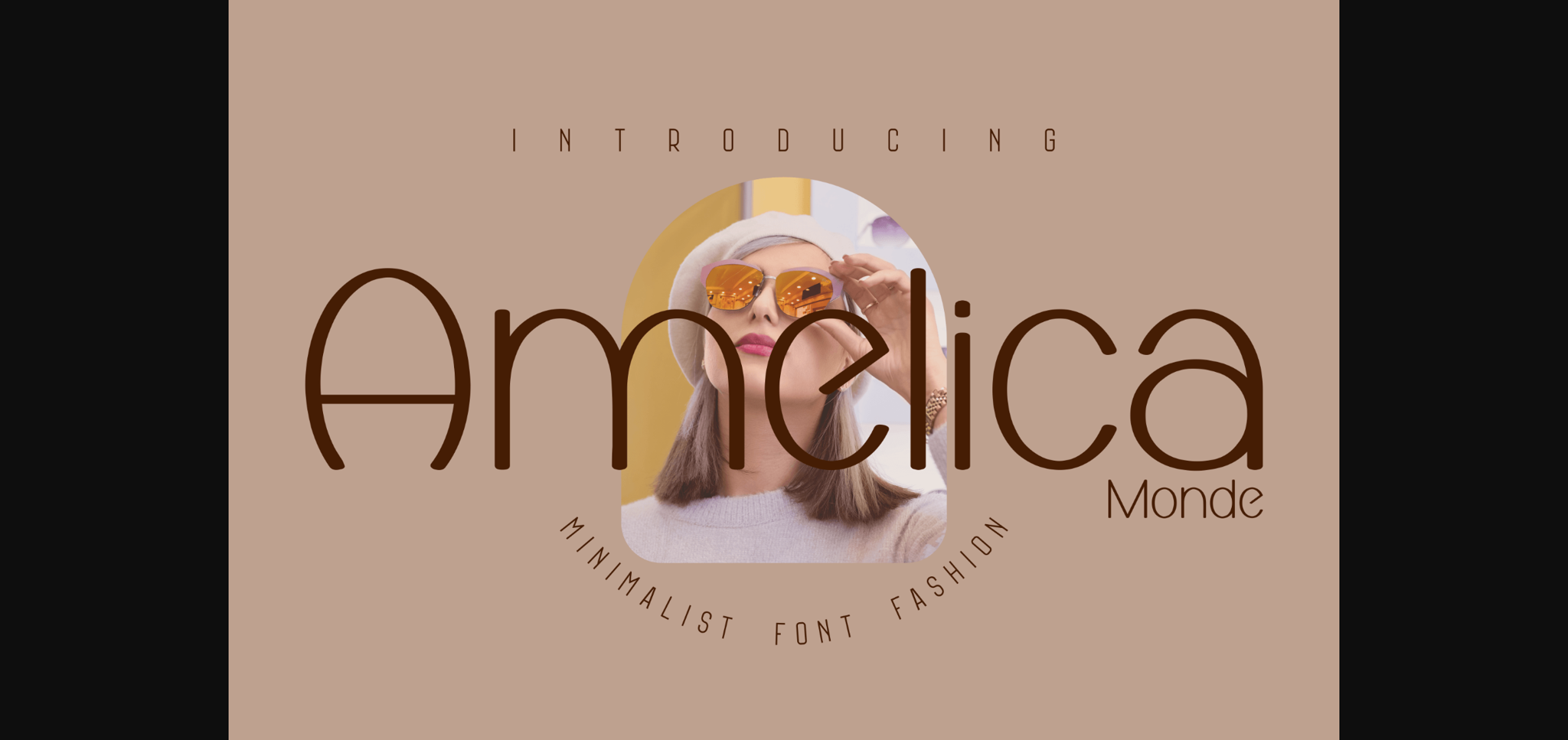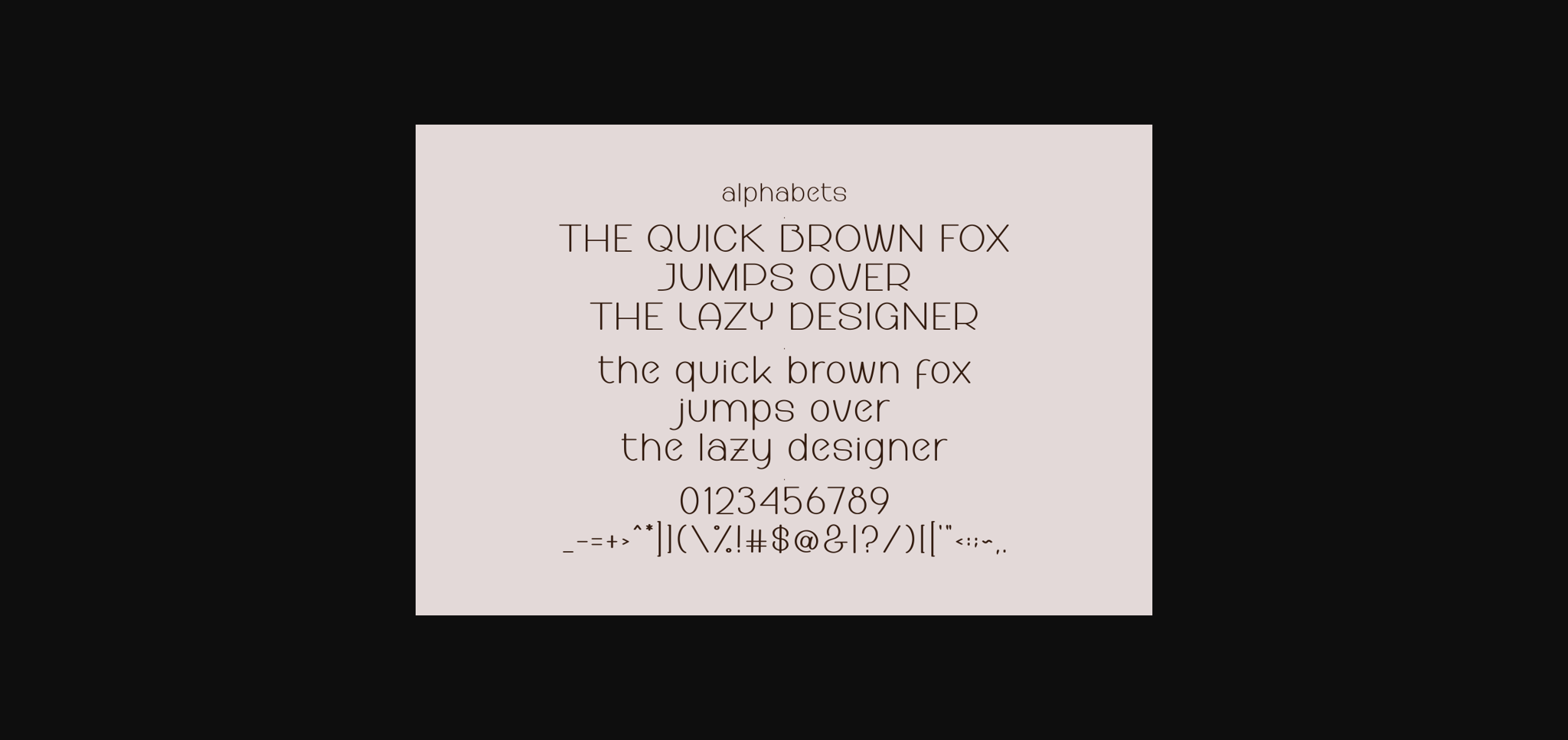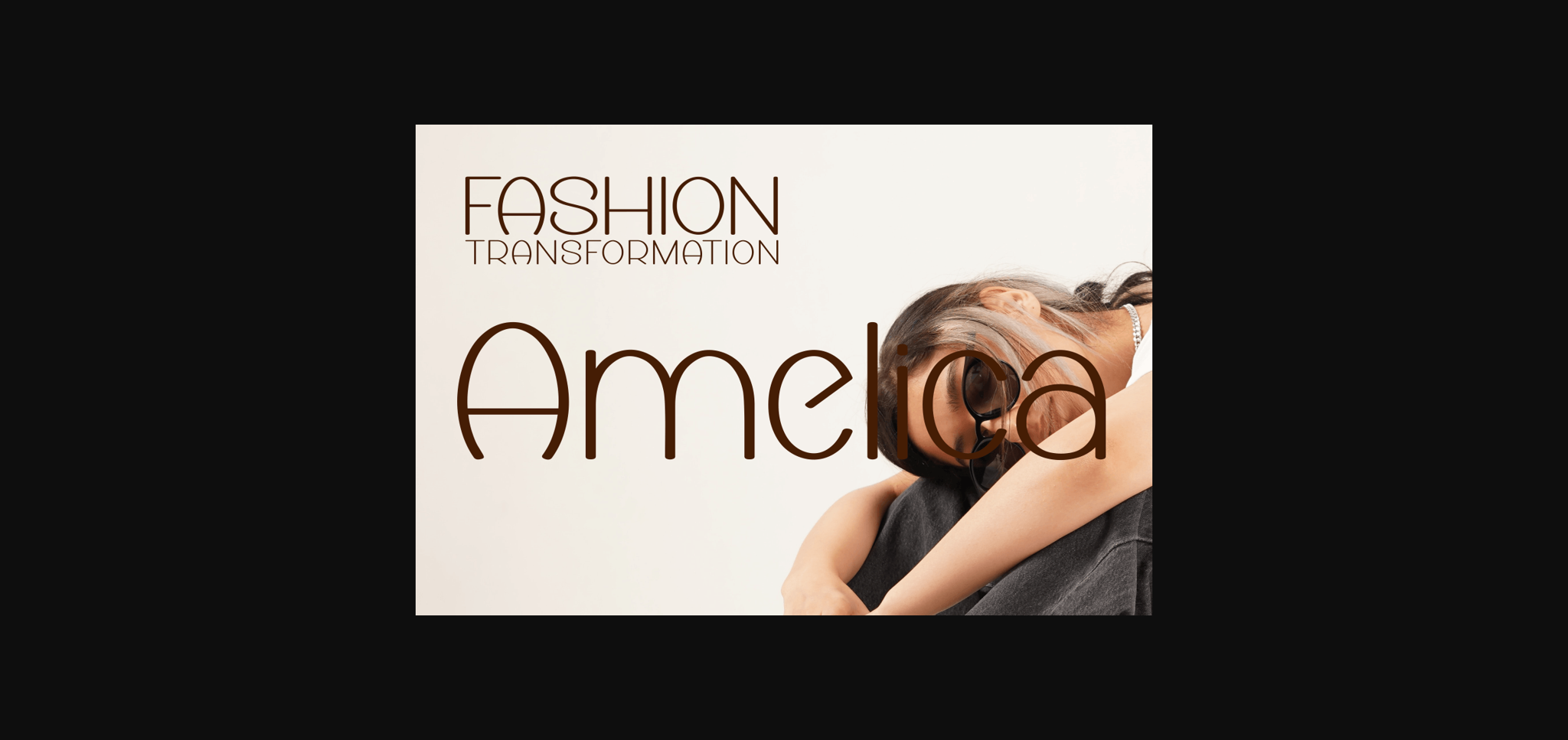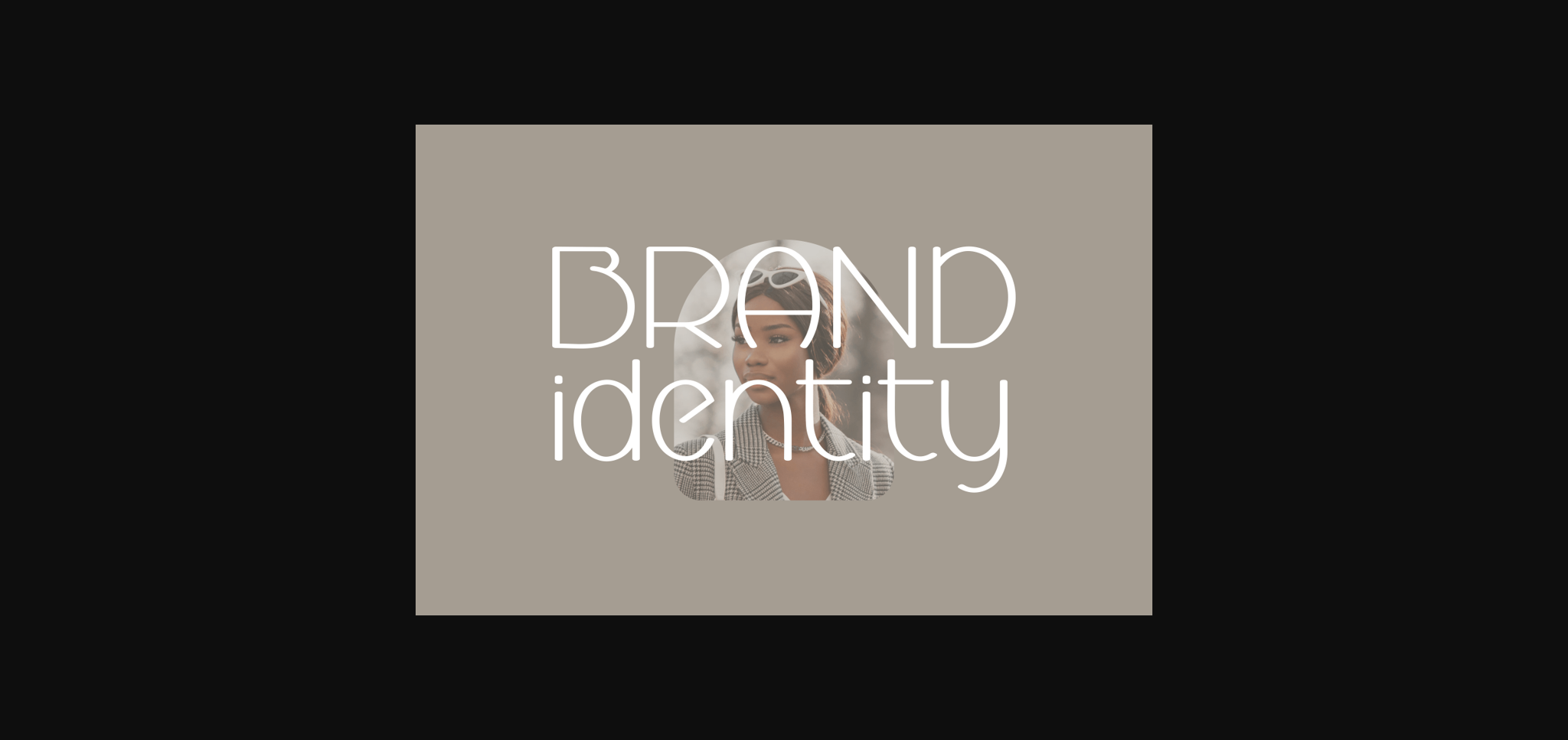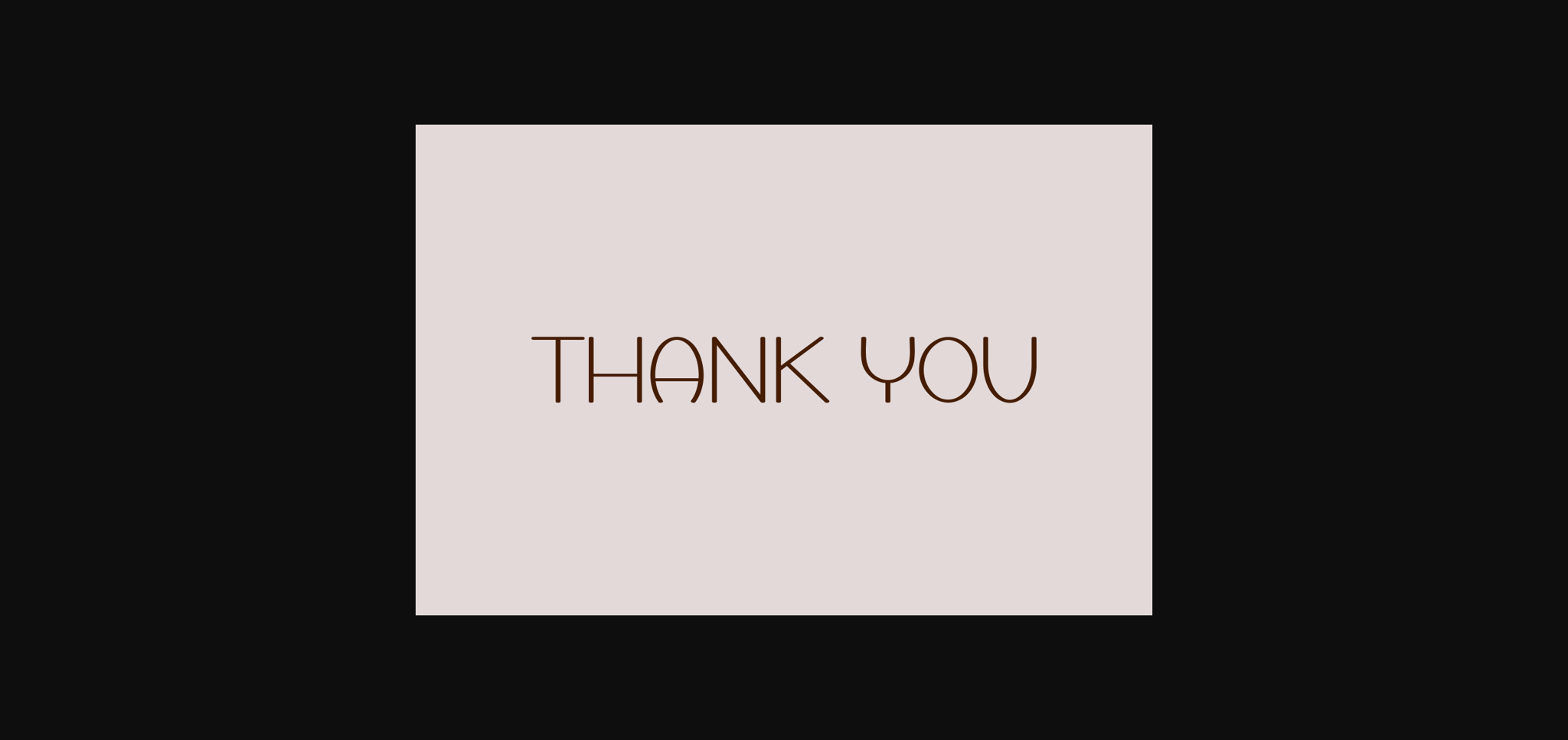
Amelica Monde Font
About Amelica Monde Font
Amelica Monde is an elegant, classy, and modern sans serif font. It’s a great font for fashion, apparel projects, signatures, album covers, logos, branding, magazines, social media, and advertisements, but also works great for other projects.